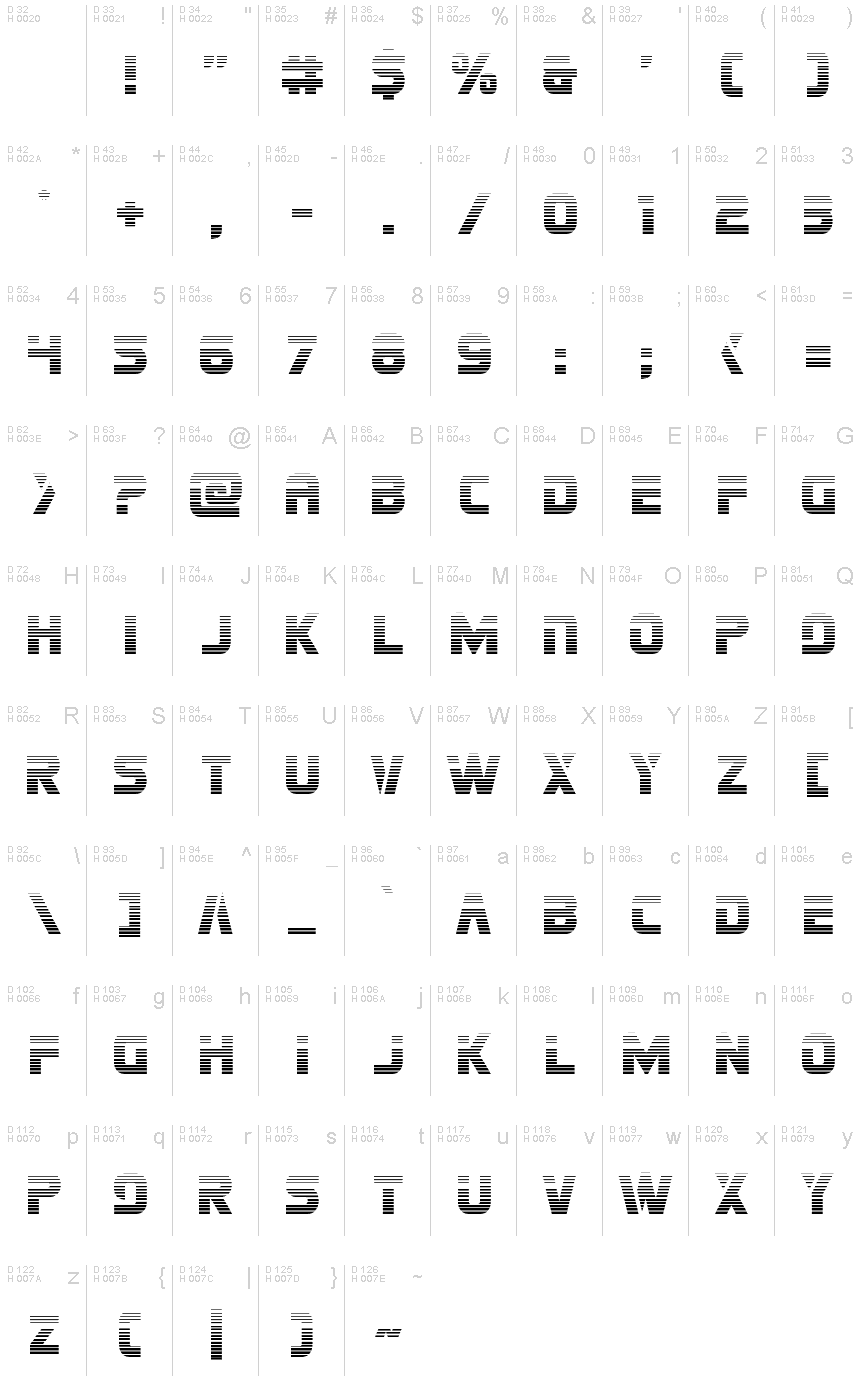
Mission: Danger Gradient
Looking for a futuristic display font to add to your next project? Look no further than Mission: Danger Gradient by Iconian Fonts. This bold and semi-expanded typeface is perfect for grabbing attention in any design, from movie posters to tech websites. The gradient effect adds an extra layer of visual interest, making it perfect for anything that needs that extra pop of color. Whether you're designing a sci-fi video game or a cutting-edge fashion magazine, Mission: Danger Gradient has got you covered. Add some danger to your designs with this eye-catching font today!